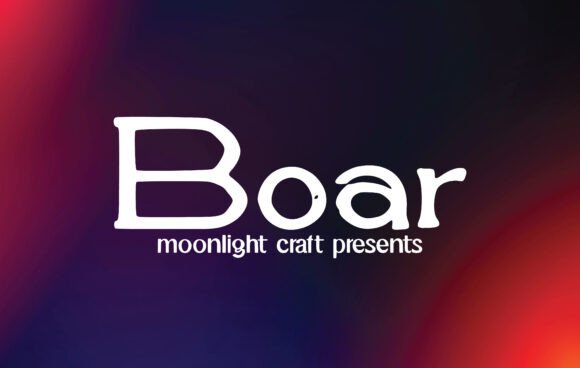
Introducing Boar Font: The Ultimate Addition to Your Typography Collection
In the world of typography, finding the perfect font that combines style, versatility, and readability can be a daunting task. However, if you’re on the hunt for a typeface that can elevate your creative projects to new heights, look no further than Boar Font. Crafted with precision and designed with the modern creator in mind, Boar Font is poised to become your go-to favorite, offering an impeccable blend of aesthetics and functionality.
The Perfect Blend of Style and Versatility
Boar Font is meticulously crafted to provide the perfect balance between style and versatility. Its unique design ensures that it stands out in any project, whether you’re working on a professional branding campaign, a personal wedding invitation, or a casual social media post. The font’s inherent charm and character make it an excellent choice for designers and creatives looking to add a touch of sophistication and personality to their work.
Ease of Reading and Adaptability
One of the standout features of Boar Font is its exceptional readability. In today’s fast-paced digital landscape, where attention spans are short, having a font that is easy to read is crucial. Boar Font meets this need perfectly, making it an ideal choice for both titles and body text. Its clear and concise letterforms ensure that your message is conveyed effectively, whether it’s in a magazine headline or a lengthy article.
Beyond readability, Boar Font also boasts impressive adaptability. It works beautifully across various mediums and applications, from t-shirts and social media graphics to more traditional print materials like wedding invitations and greeting cards. This versatility makes Boar Font an invaluable asset in your typography arsenal, capable of meeting the diverse needs of your creative projects.
Ideal for a Wide Range of Creative Projects
Boar Font’s adaptability and aesthetic appeal make it suitable for a myriad of creative endeavors. Here are a few examples of where this fantastic font can make a significant impact:
• Magazine Headlines: Use Boar Font to create eye-catching headlines that draw readers in. Its stylish and modern look is sure to elevate the visual appeal of your magazine.
• T-Shirts and Merchandise: The font’s clear and distinctive style makes it perfect for apparel and merchandise design, ensuring your message or brand logo stands out.
• Social Media Posts: Enhance your social media presence with Boar Font. Its readability and style make it ideal for creating engaging posts that capture attention.
• Branding Materials: Establish a strong brand identity with Boar Font. Its professional look is suitable for logos, brochures, and other marketing materials.
• Wedding Invitations and Greeting Cards: Add a touch of elegance and personality to your wedding invitations and greeting cards with Boar Font, making them truly memorable.
Why Choose Boar Font?
With so many fonts available, why should Boar Font be your top choice? The answer lies in its unique combination of style, versatility, and functionality. Here are a few compelling reasons to consider:
• Unique Style: Boar Font offers a fresh and distinctive look that can set your projects apart from the rest.
• High Versatility: Its adaptability across different mediums and applications makes it a practical choice for a wide range of projects.
• Exceptional Readability: Ensure your message is conveyed clearly and effectively with a font that prioritizes readability.
In conclusion, Boar Font is more than just a typeface; it’s a creative tool designed to elevate your projects to new heights. Its perfect blend of style, versatility, and readability makes it an indispensable asset for designers, creatives, and anyone looking to make a lasting impression. Whether you’re working on a professional project or a personal endeavor, Boar Font is sure to become your trusted companion, helping you achieve your creative goals with ease and style.
Final Thoughts
Boar Font represents a significant addition to the world of typography, offering a unique blend of aesthetics, functionality, and versatility. By incorporating it into your creative toolkit, you’ll be well-equipped to tackle a wide range of projects with confidence and style. Embrace the possibilities that Boar Font offers and watch your creative projects transform in exciting and unexpected ways.